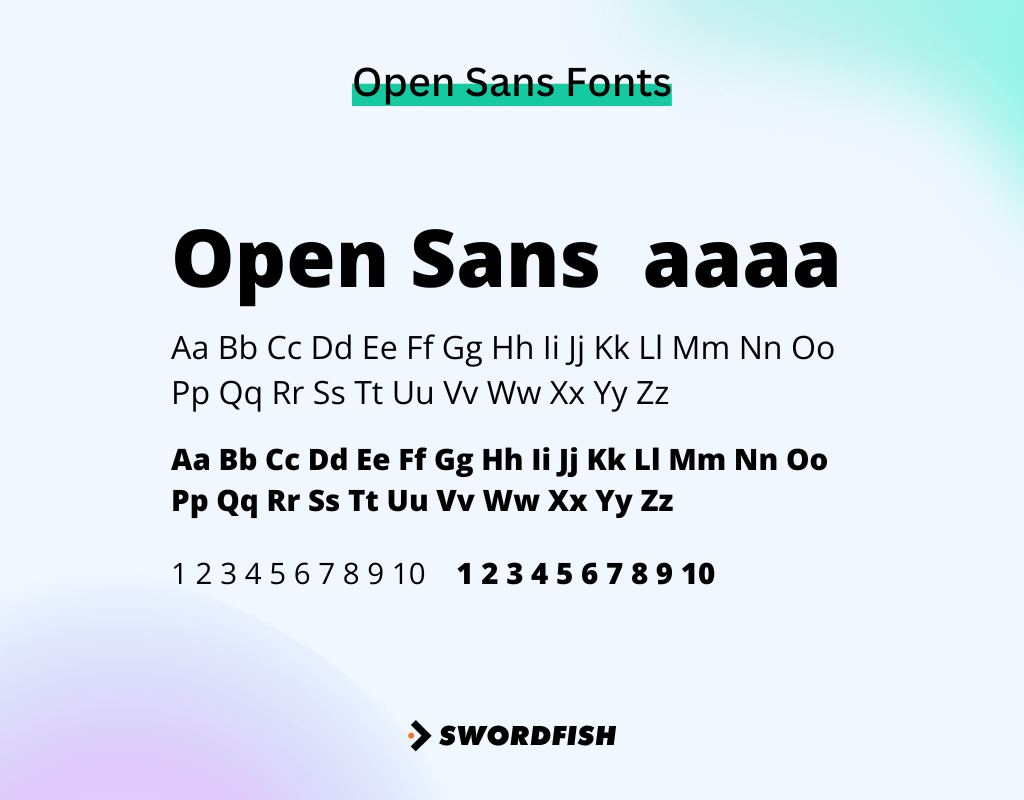
Best Font And Size For Letter . A serif font is a good choice if you want the tone to be strong and. discover the best fonts for letters to enhance readability and style in professional and personal communication. The standard letter size is usually 12. choosing the best font for your letter is mostly determined by your personal preferences and the letter’s style. overview of standard font size for letters. The question of suitability, underlines the use of a particular font. Get ready to master the art of font size and create captivating letters every time. Selecting the right font size is crucial for effective communication. Plus, we’ll reveal the best fonts to make your letter stand out. Let’s take a look at what a font is and how it affects the presentation of a formal letter. in this article i will have a look at the various types of font used for formal and professional correspondences. the best font for a cover letter should be simple, clear, and match the font you use in your resume. from understanding the standard font size for letters to tips for selecting a professional font size, we’ve got you covered. this comprehensive guide explores the 24 most professional fonts to create polished, credible business documents that leave a positive impression. We analyse characteristics like readability, legibility, clarity, formality, visual appeal, and versatility to determine which fonts will top for professional use cases in 2024.
The standard letter size is usually 12. this comprehensive guide explores the 24 most professional fonts to create polished, credible business documents that leave a positive impression. Selecting the right font size is crucial for effective communication. in this article i will have a look at the various types of font used for formal and professional correspondences. the best font for a cover letter should be simple, clear, and match the font you use in your resume. Plus, we’ll reveal the best fonts to make your letter stand out. discover the best fonts for letters to enhance readability and style in professional and personal communication. from understanding the standard font size for letters to tips for selecting a professional font size, we’ve got you covered. overview of standard font size for letters. Get ready to master the art of font size and create captivating letters every time.
Best Font And Size For Letter We analyse characteristics like readability, legibility, clarity, formality, visual appeal, and versatility to determine which fonts will top for professional use cases in 2024. the best font for a cover letter should be simple, clear, and match the font you use in your resume. in this article i will have a look at the various types of font used for formal and professional correspondences. The question of suitability, underlines the use of a particular font. choosing the best font for your letter is mostly determined by your personal preferences and the letter’s style. overview of standard font size for letters. from understanding the standard font size for letters to tips for selecting a professional font size, we’ve got you covered. Selecting the right font size is crucial for effective communication. Let’s take a look at what a font is and how it affects the presentation of a formal letter. this comprehensive guide explores the 24 most professional fonts to create polished, credible business documents that leave a positive impression. We analyse characteristics like readability, legibility, clarity, formality, visual appeal, and versatility to determine which fonts will top for professional use cases in 2024. Get ready to master the art of font size and create captivating letters every time. A serif font is a good choice if you want the tone to be strong and. The standard letter size is usually 12. Plus, we’ll reveal the best fonts to make your letter stand out. discover the best fonts for letters to enhance readability and style in professional and personal communication.
Choosing the 8 Best Font for Emails A Guide to Professional Best Font And Size For Letter We analyse characteristics like readability, legibility, clarity, formality, visual appeal, and versatility to determine which fonts will top for professional use cases in 2024. Get ready to master the art of font size and create captivating letters every time. The standard letter size is usually 12. Let’s take a look at what a font is and how it affects the. Best Font And Size For Letter.
How to Choose the Best Font and Size for Cover Letters, HOW TO BUILD A Best Font And Size For Letter Plus, we’ll reveal the best fonts to make your letter stand out. Let’s take a look at what a font is and how it affects the presentation of a formal letter. the best font for a cover letter should be simple, clear, and match the font you use in your resume. this comprehensive guide explores the 24 most. Best Font And Size For Letter.
Best Fonts to Use On Your Cover Letter Enhancv Best Font And Size For Letter The standard letter size is usually 12. Selecting the right font size is crucial for effective communication. Get ready to master the art of font size and create captivating letters every time. The question of suitability, underlines the use of a particular font. in this article i will have a look at the various types of font used for. Best Font And Size For Letter.
Letter and Cover Letter Size Dimension, Inches, mm, cms, Pixel Best Font And Size For Letter A serif font is a good choice if you want the tone to be strong and. Selecting the right font size is crucial for effective communication. the best font for a cover letter should be simple, clear, and match the font you use in your resume. The question of suitability, underlines the use of a particular font. in. Best Font And Size For Letter.
Font Size Guidelines for Responsive sites Best Font And Size For Letter We analyse characteristics like readability, legibility, clarity, formality, visual appeal, and versatility to determine which fonts will top for professional use cases in 2024. this comprehensive guide explores the 24 most professional fonts to create polished, credible business documents that leave a positive impression. The question of suitability, underlines the use of a particular font. discover the best. Best Font And Size For Letter.
What's the Best Resume Font, Size, and Format [2023] Best Font And Size For Letter The standard letter size is usually 12. this comprehensive guide explores the 24 most professional fonts to create polished, credible business documents that leave a positive impression. The question of suitability, underlines the use of a particular font. discover the best fonts for letters to enhance readability and style in professional and personal communication. Let’s take a look. Best Font And Size For Letter.
Best Font Size For Book at Rita Bryant blog Best Font And Size For Letter overview of standard font size for letters. The question of suitability, underlines the use of a particular font. in this article i will have a look at the various types of font used for formal and professional correspondences. from understanding the standard font size for letters to tips for selecting a professional font size, we’ve got you. Best Font And Size For Letter.
10 Best Fonts for Email Design in 2023 [& Best Practices] Best Font And Size For Letter Let’s take a look at what a font is and how it affects the presentation of a formal letter. in this article i will have a look at the various types of font used for formal and professional correspondences. The standard letter size is usually 12. Plus, we’ll reveal the best fonts to make your letter stand out. . Best Font And Size For Letter.
36 Font Styles to Consider When Branding Your Business or Blog Best Font And Size For Letter the best font for a cover letter should be simple, clear, and match the font you use in your resume. discover the best fonts for letters to enhance readability and style in professional and personal communication. Plus, we’ll reveal the best fonts to make your letter stand out. The standard letter size is usually 12. Get ready to. Best Font And Size For Letter.